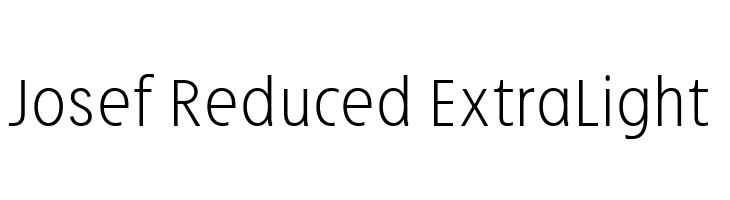
A clean, minimalist font with a modern and professional design.
A clean, modern sans-serif font with a minimalist design.
A clean, modern sans-serif font with low contrast and rounded edges.
A modern, geometric sans-serif typeface with uniform stroke width and excellent readability.